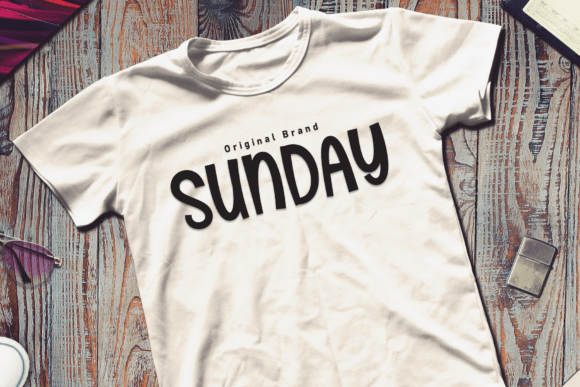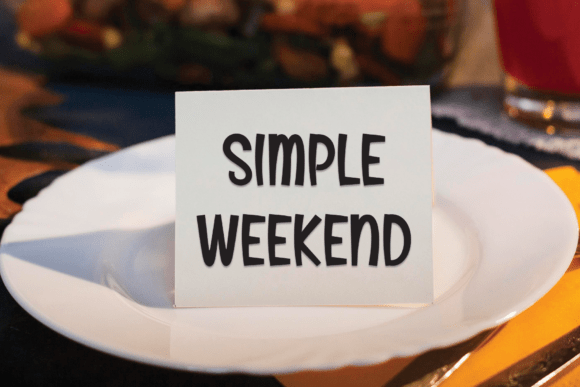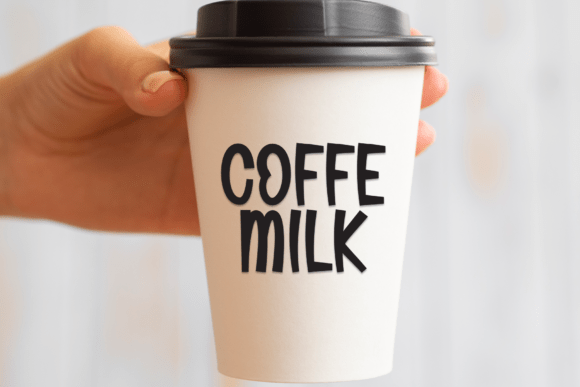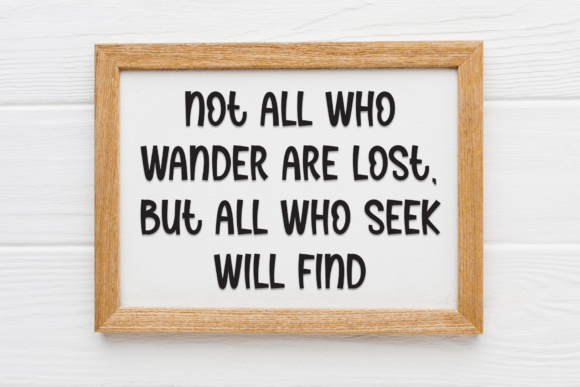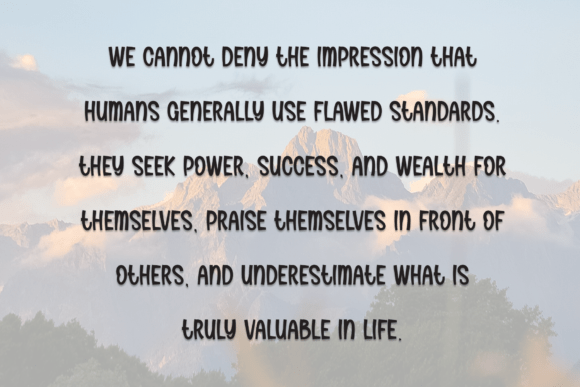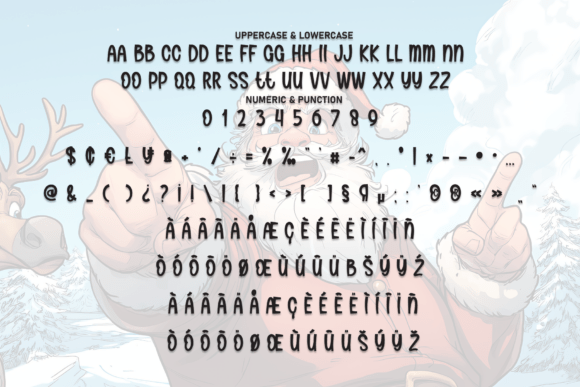
Deck the Halls with Type: The Joy of Comic Santa Font
As the holiday season approaches, designers often find themselves searching for the perfect font to capture the magic and excitement of the season. For many, the moment of inspiration comes when envisioning a festive holiday card or a bright, cheerful logo that screams ‘joy.’
That’s where Comic Santa Font comes in – a friendly and energetic display font that reimagines festive typography with a bold, comic-inspired aesthetic. With its ultra-thick, rounded letterforms and consistent stroke weights, this font is a delightful choice for designers looking to add a touch of whimsy to their holiday projects.
Whether you’re designing a children’s holiday book, vibrant seasonal packaging, or lighthearted social media content, Comic Santa Font is a valuable addition to your design toolkit, offering a unique and playful twist on traditional holiday typography.
Key Features of Comic Santa Font
- Font Family: Comic Santa Font is a unique, hand-drawn font designed to evoke a festive and playful atmosphere.
- Character Count: Contains 100 characters, including uppercase and lowercase letters, numbers, and special characters.
- Unique Characteristics: Features a hand-drawn, comic-style design with bold lines and playful flourishes, making it ideal for holiday-themed designs, children’s books, and more.
Comic Santa Font Review
I recently had the chance to work with the Comic Santa Font, and I must say it’s a unique and playful choice for holiday-themed projects. ✨ The font’s bold and colorful design immediately grabs attention, making it perfect for titles and headings.
- ✨ The font’s hand-drawn feel adds a personal touch, giving your designs a sense of whimsy and charm.
- ✨ The font is highly customizable, allowing you to adjust the size, color, and style to fit your project’s needs.
- ⚠️ The font may not be suitable for formal or professional projects, as its playful design may come across as immature or unprofessional.
- ⚠️ The font’s bold lines may not render well on certain devices or screen resolutions, which could affect its overall appearance.
Overall, the Comic Santa Font is a fun and creative choice for holiday-themed projects or designs that require a playful touch. While it may have some limitations, its unique design and high customizability make it a great option for designers looking to add some personality to their work.
Comic Santa Font is perfect for:
- Christmas-themed designs and marketing materials.
- Children’s books and educational materials.
- Fun and playful branding and logos.